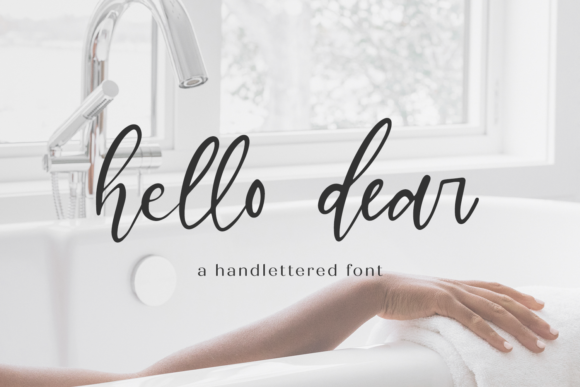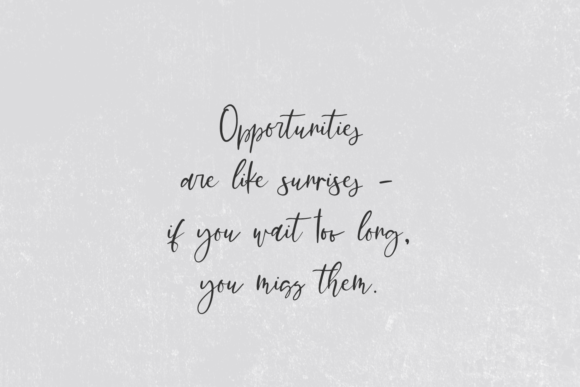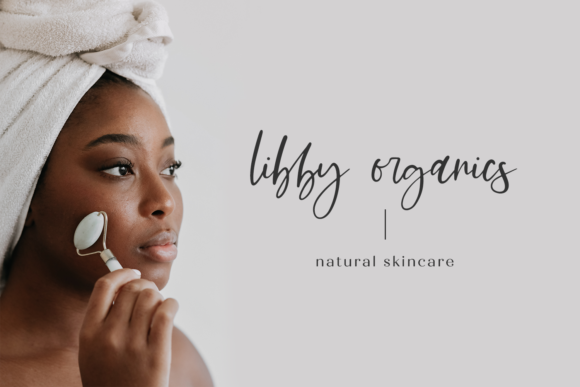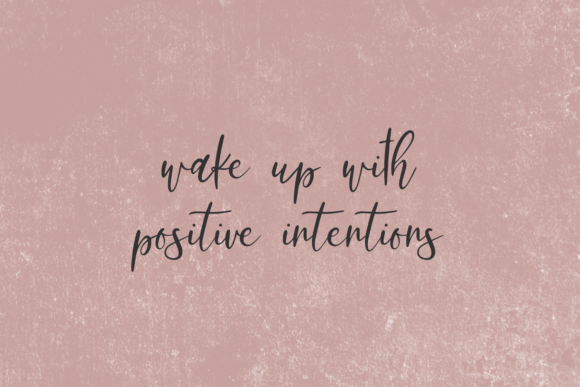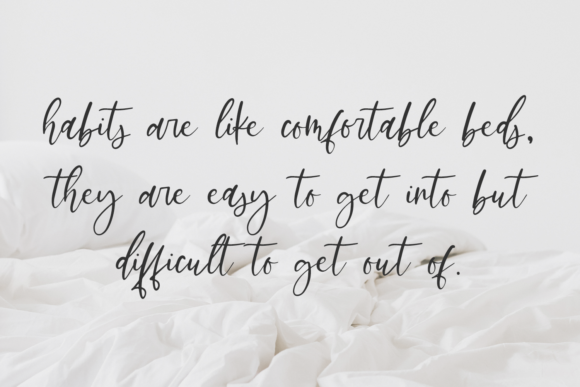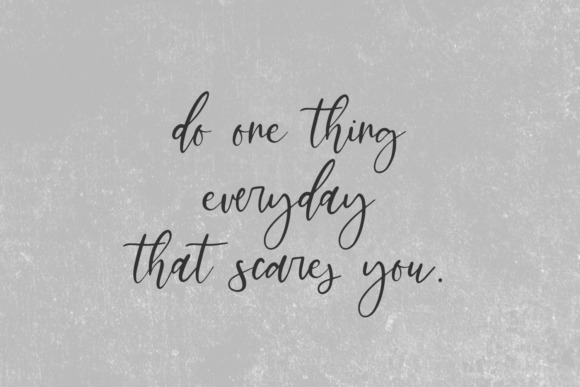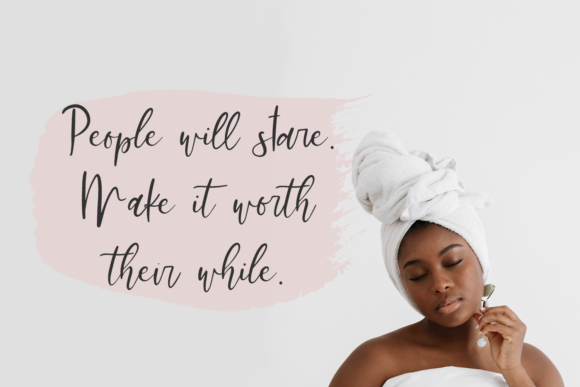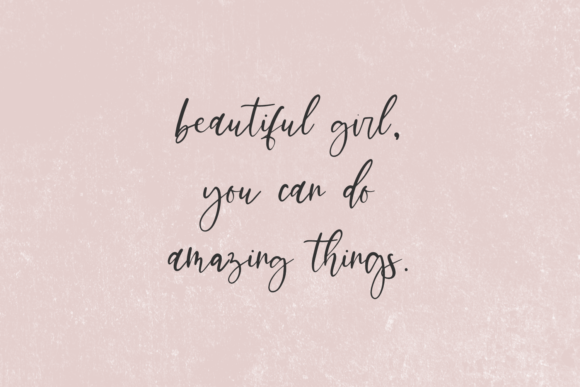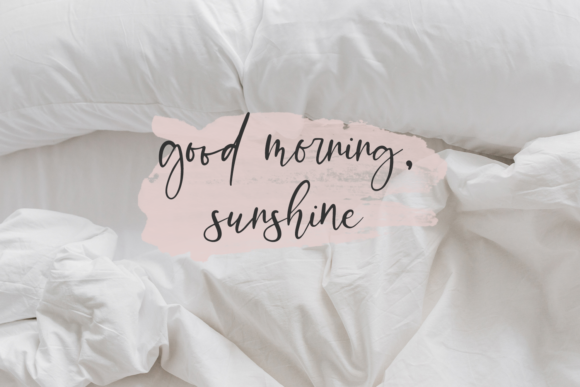
Hello Dear Font
About Hello Dear Font
Hello Dear is a delicate, elegant and flowing handwritten font. It has beautiful and well balanced characters and as a result, it matches a wide pool of designs. This font is PUA encoded which means you can access all of the glyphs and swashes with ease!